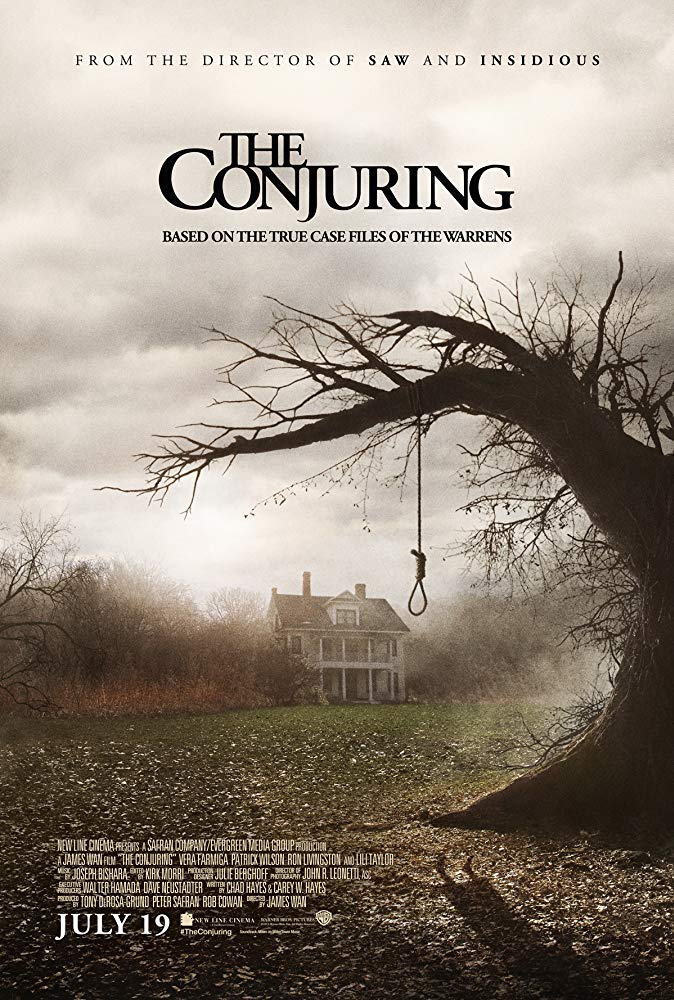
The Conjuring (film) Font
Fonts in UseThe Conjuring is a 2013 horror movie directed by James Wan that follows paranormal investigators Ed and Lorraine Warren as they help a family plagued by a malevolent entity in their new home. The film is based on a true story and has spawned a successful franchise.
The Conjuring title displayed on the poster appears to be a modified rendition of the Adobe Garamond Semi Bold font.